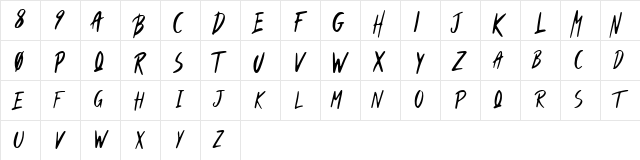
Muttcha Regular
| Foundry | MC STUDIO |
| Designer | MC STUDIO |
Design Context for Muttcha Typeface
Muttcha is a composed and adaptable typeface that performs quietly and consistently across a wide range of design contexts.